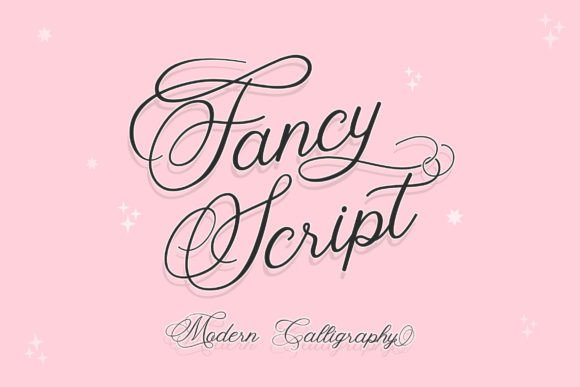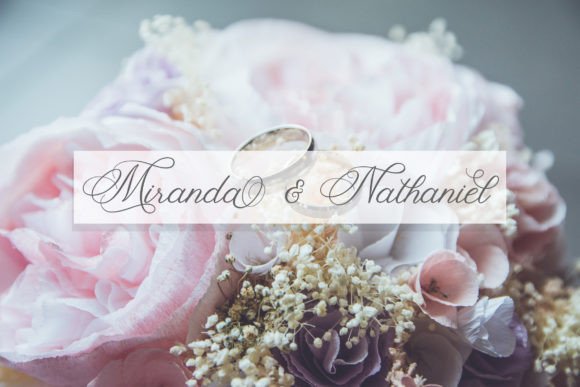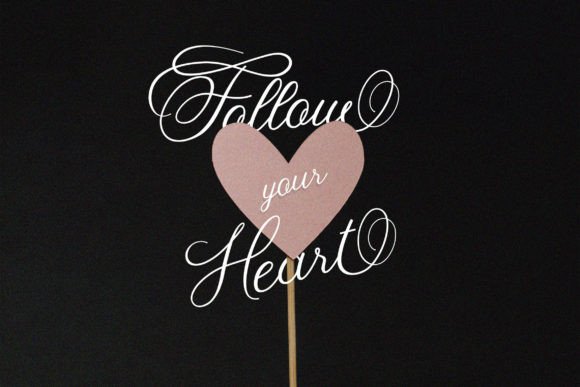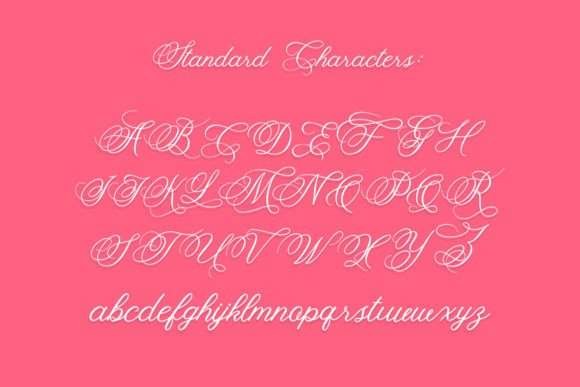
Fancy Script Font: Elegant Handwritten Typography for Wedding Designs
About the Fancy Script Font
The Fancy Script Font is here to transform your projects with its distinctive character and style. This sophisticated font is perfect for making a statement. It has a fancy and appealing handwritten style, with an elegant and graceful flow. Perfect for advertisements, invitations, and more. This font is PUA encoded which means you can access all of the amazing glyphs and ligatures with ease!
Its elegant, flowing forms make it ideal for headlines, short text blocks on invitations or certificates, and logos requiring a touch of sophistication. Avoid using it for body text or lengthy paragraphs; the ornate details would become visually overwhelming and hinder readability. Consider pairing it with a clean sans-serif like Montserrat for a modern contrast, or a classic serif such as Garamond for a more traditional feel.
The overall personality is refined and celebratory, lending itself to brands focused on luxury, events, or the arts. For a playful yet upscale feel, combine it with a slightly rounded sans-serif. For a more dramatic effect, a geometric sans-serif would create strong visual tension. In short, this script font is best used strategically to add a touch of refined flair.
Fancy Script Font Usage Examples
Fancy Script Font Example